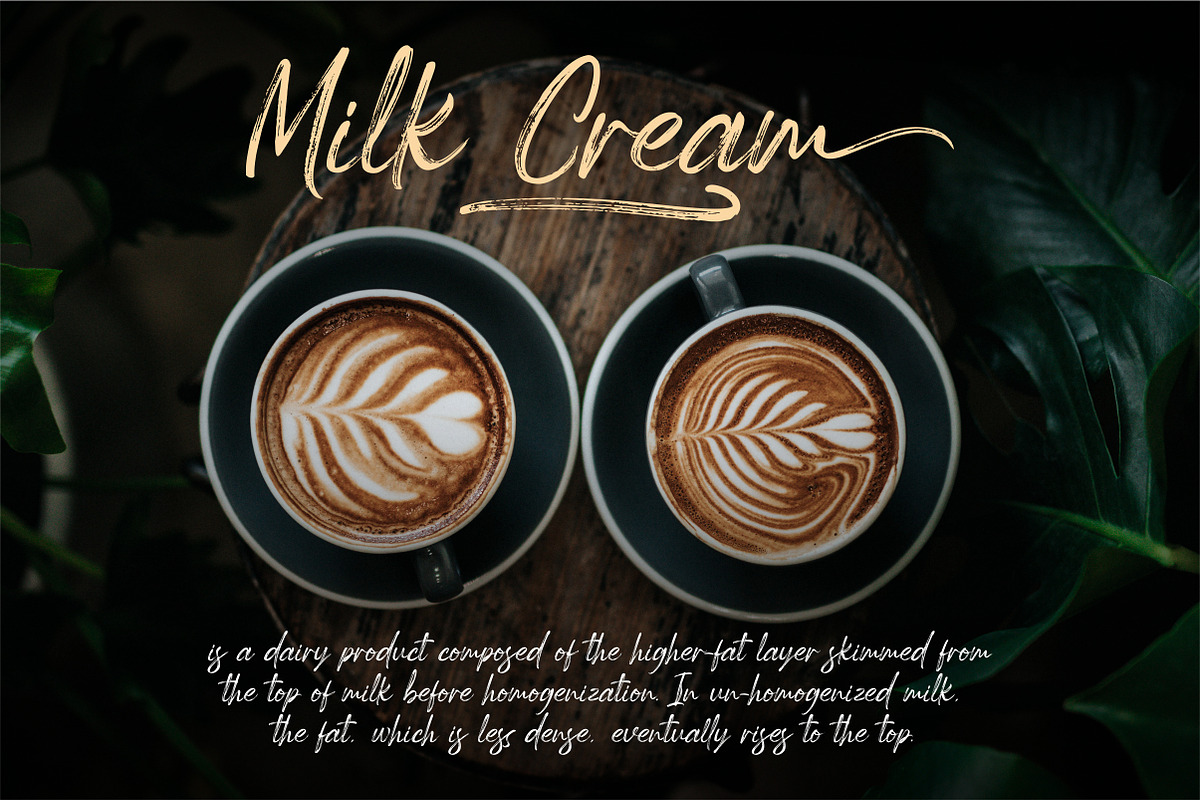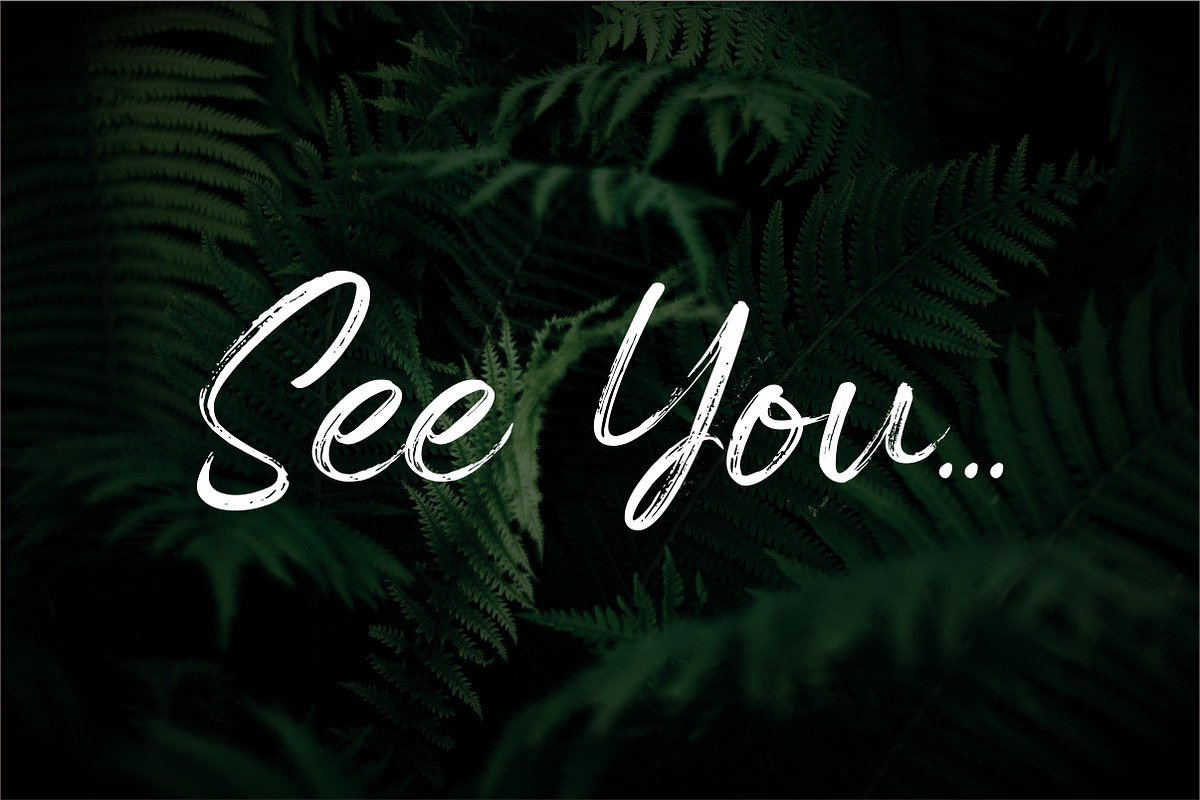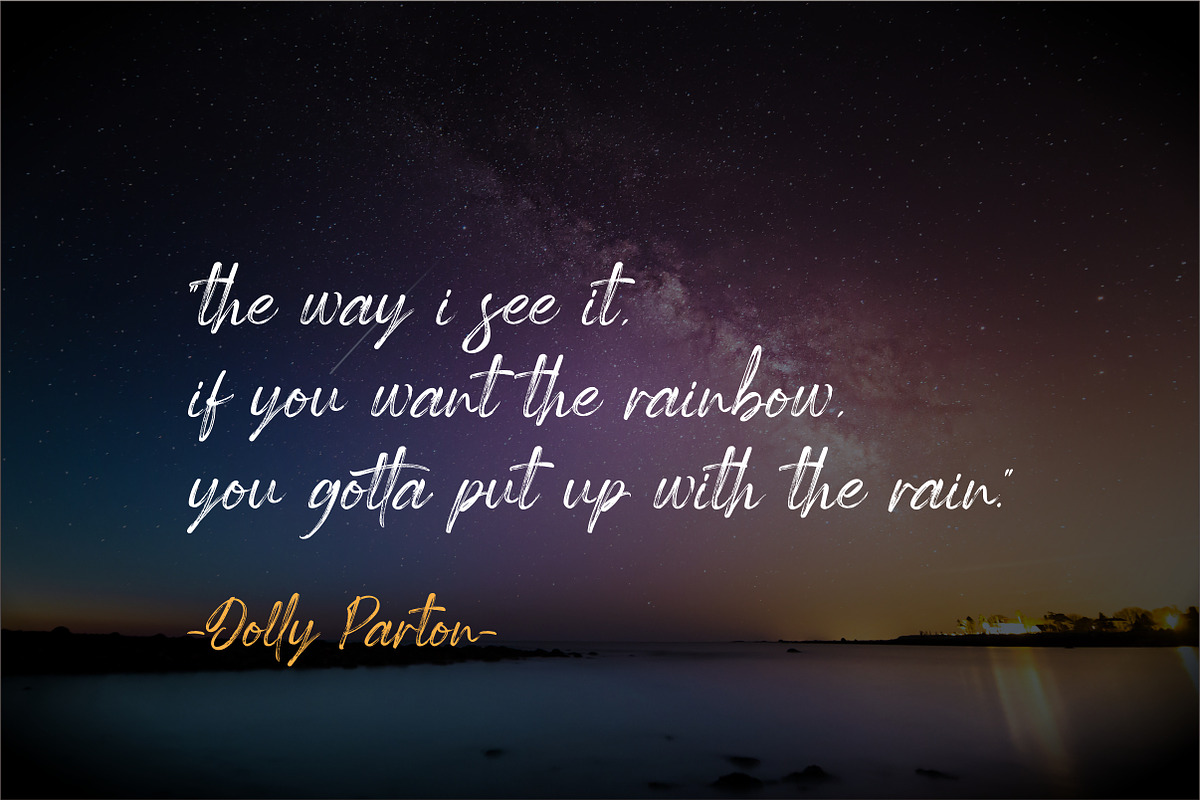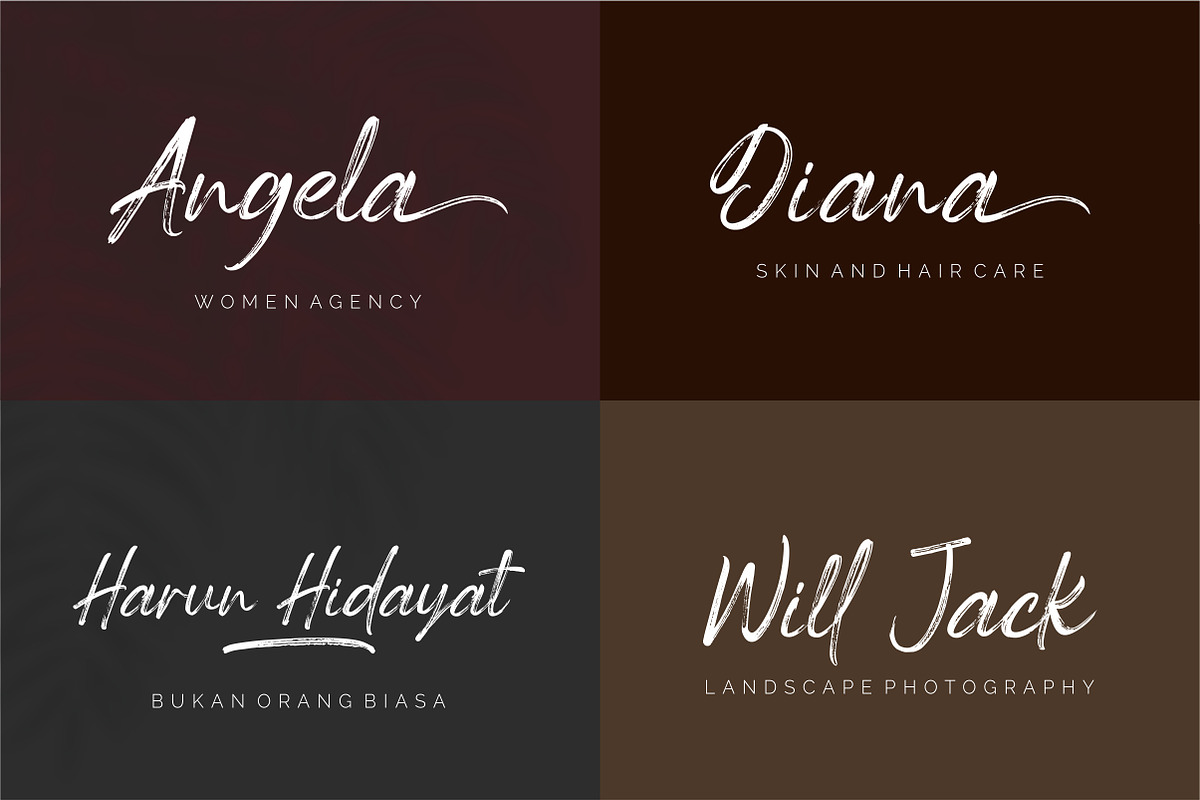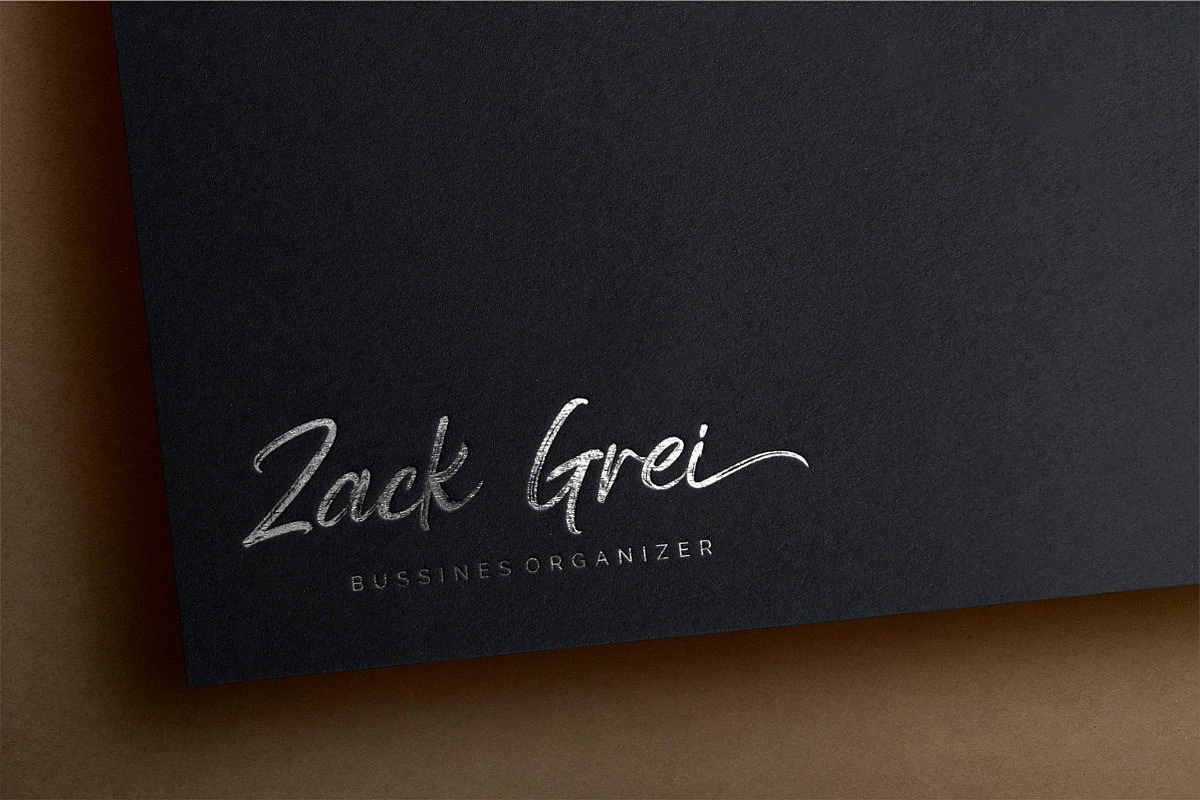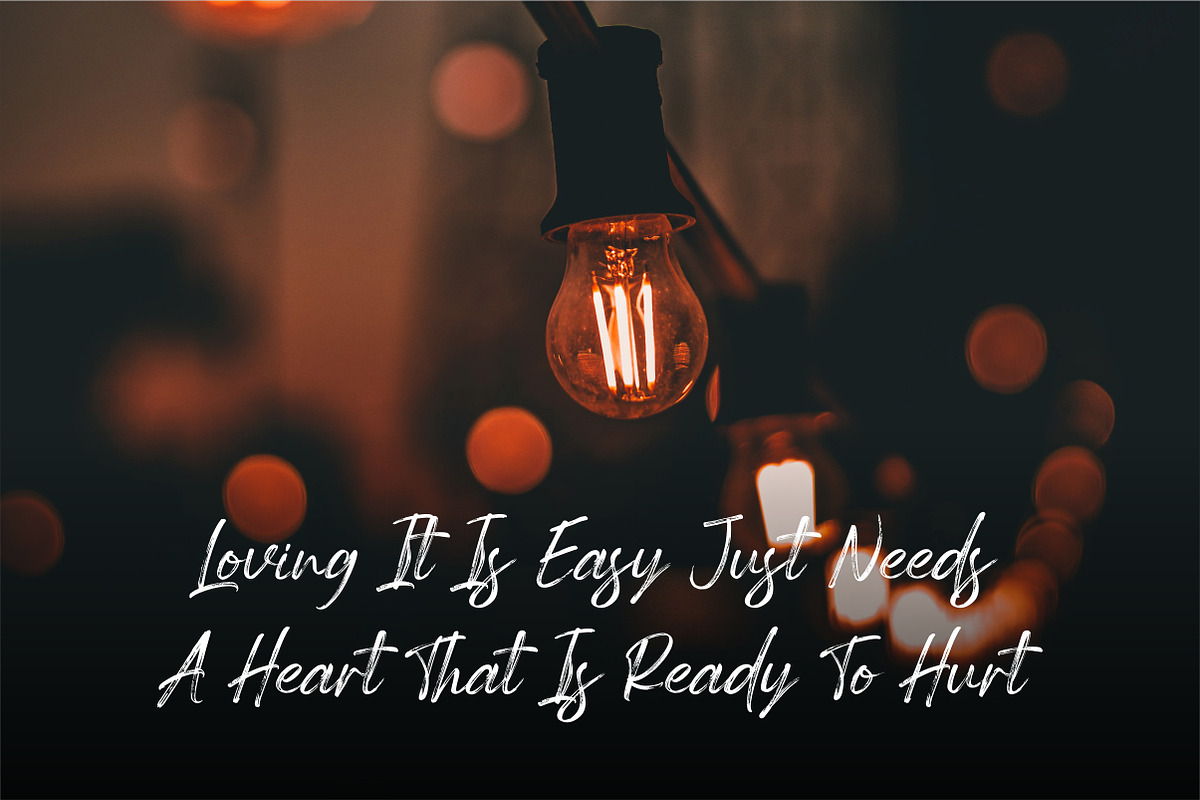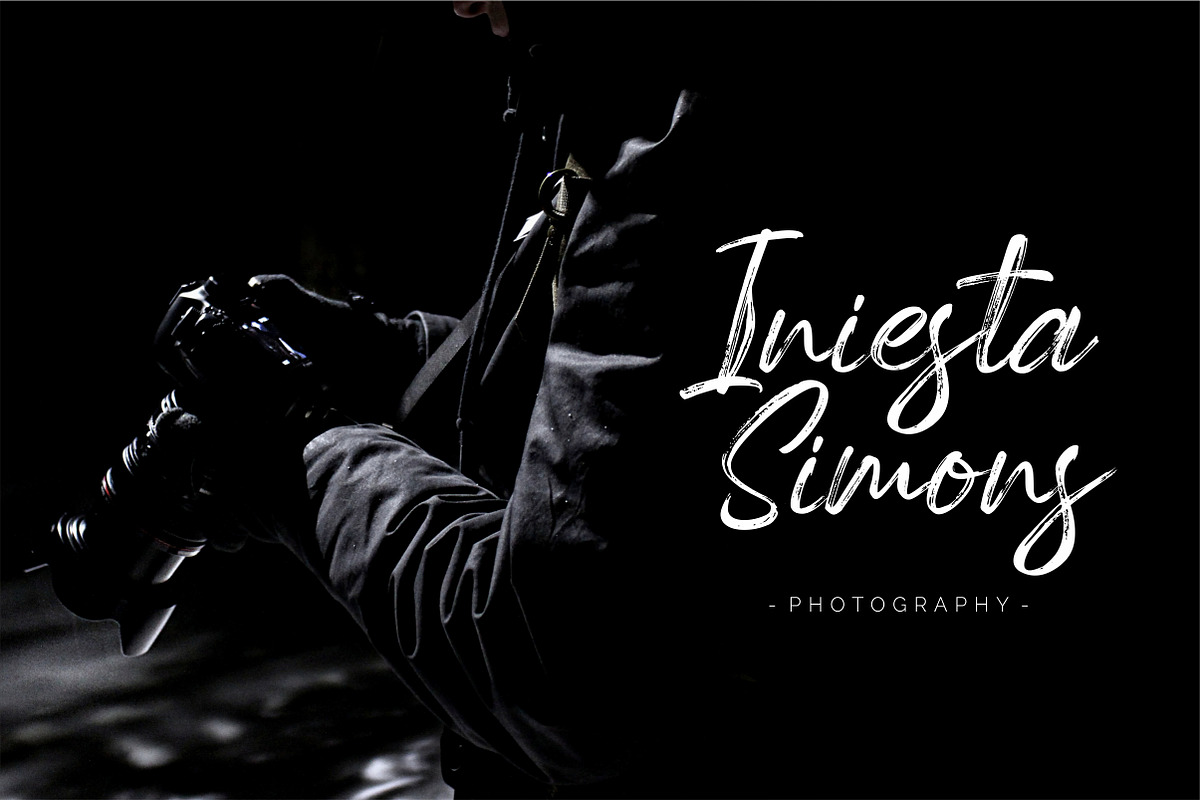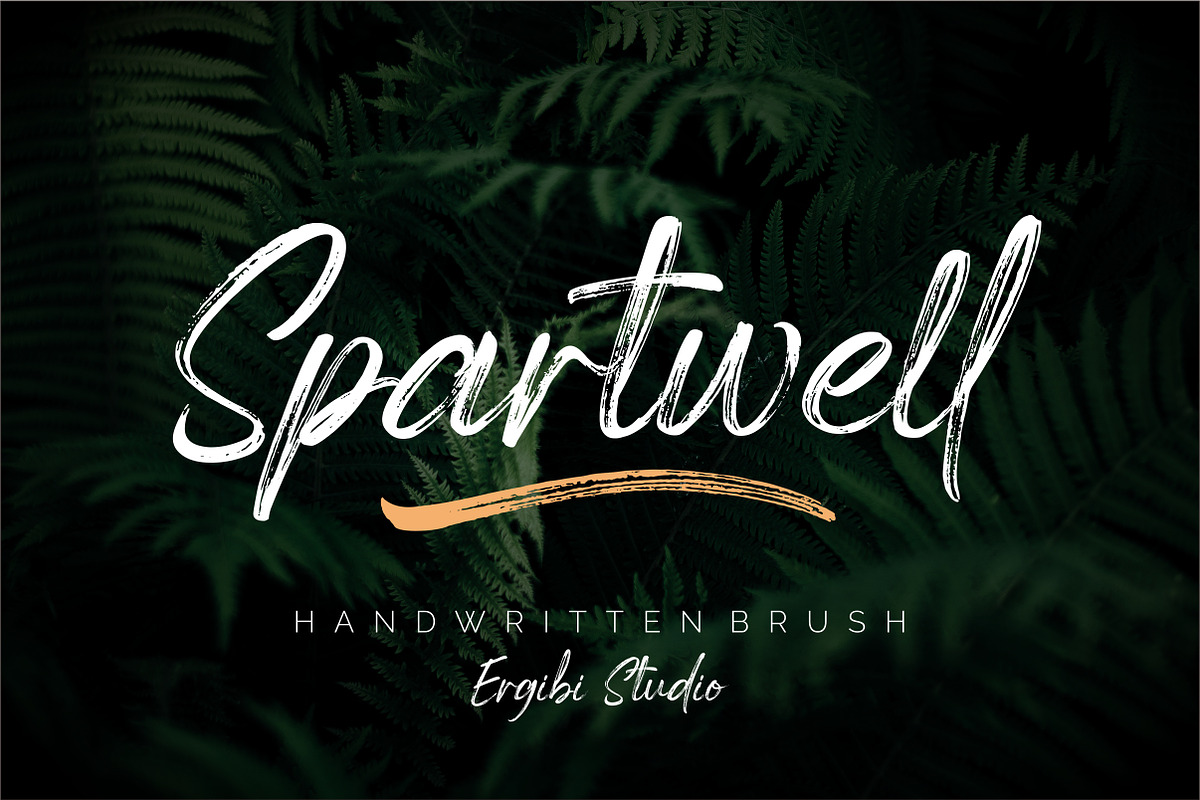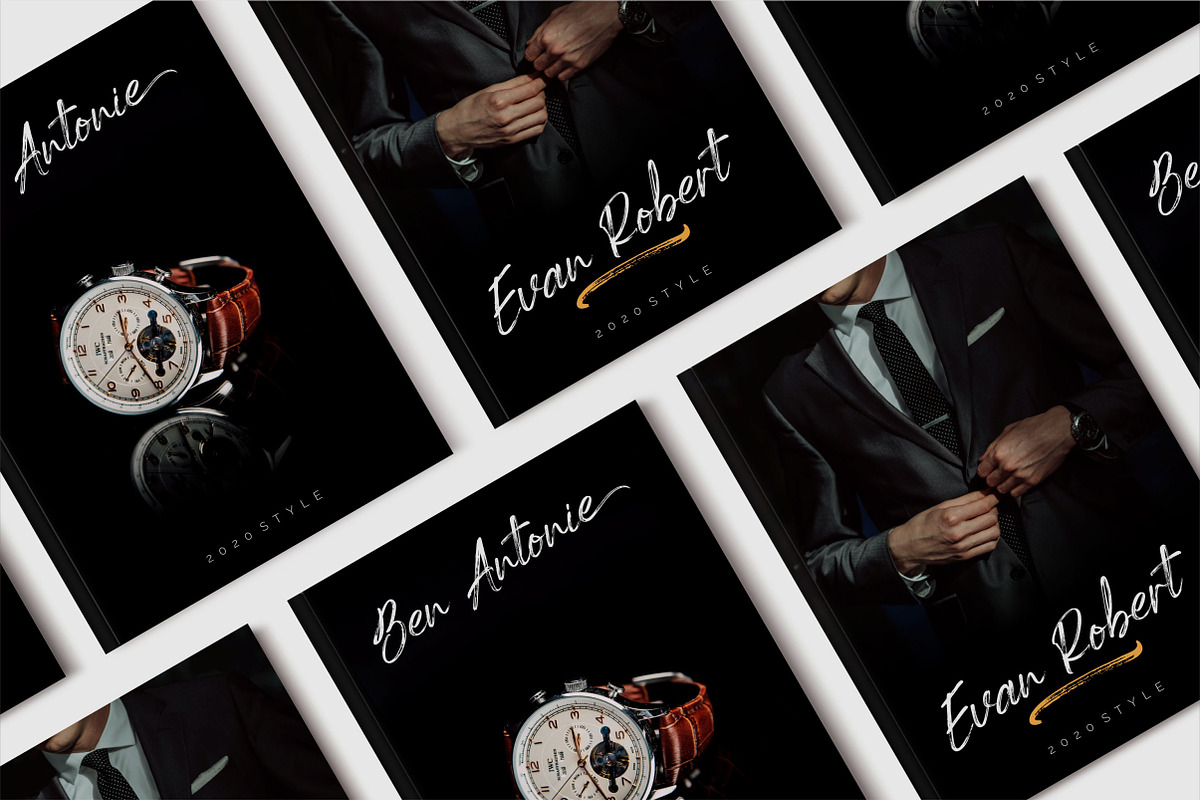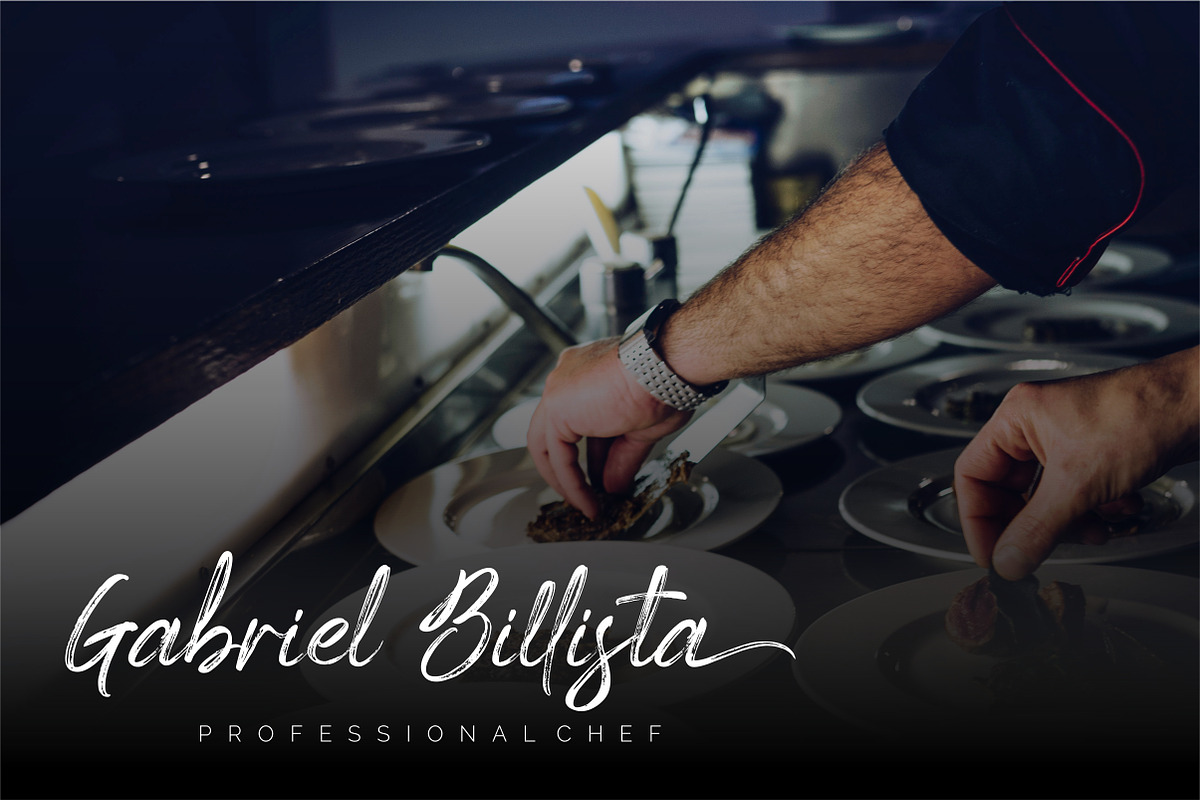
Spartwell |HANDWRITTEN BRUSH|
Introducing Spartwell is a handwriting with brush effect that comes with a style that seems real. This font style inspired by luxury goods and branded makes in many ways for your latest project. Spartwell is perfect for logos & branding, photography, invitations, watermarks, advertisements, product designs, stationery, wedding designs, labels, product packaging, special events or anything that requires handwritten content.
Spartwell Also available for some lowercase characters that have swash, as well as multilingual. This can be accessed easily via opentype in Photoshop / Illustrator.